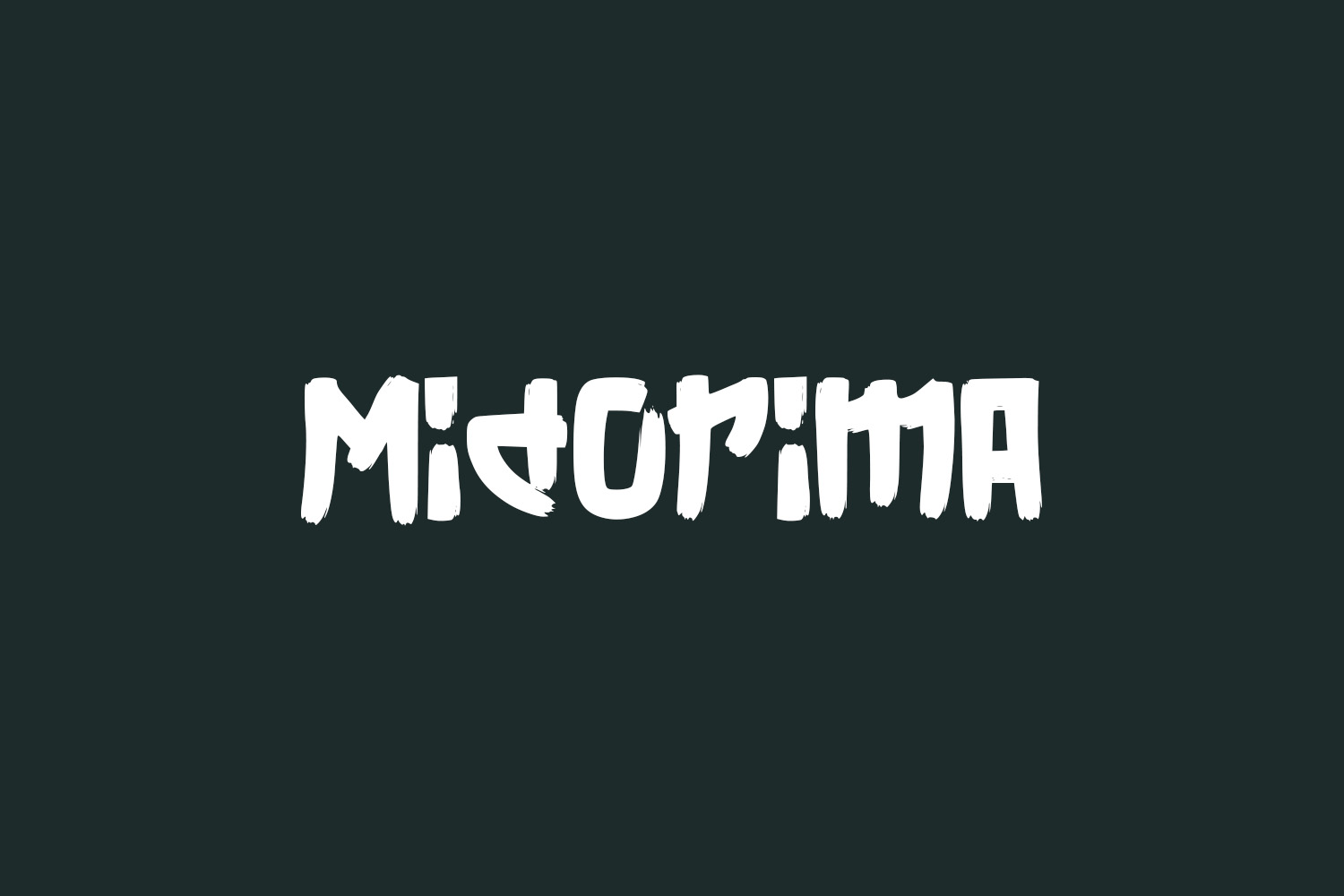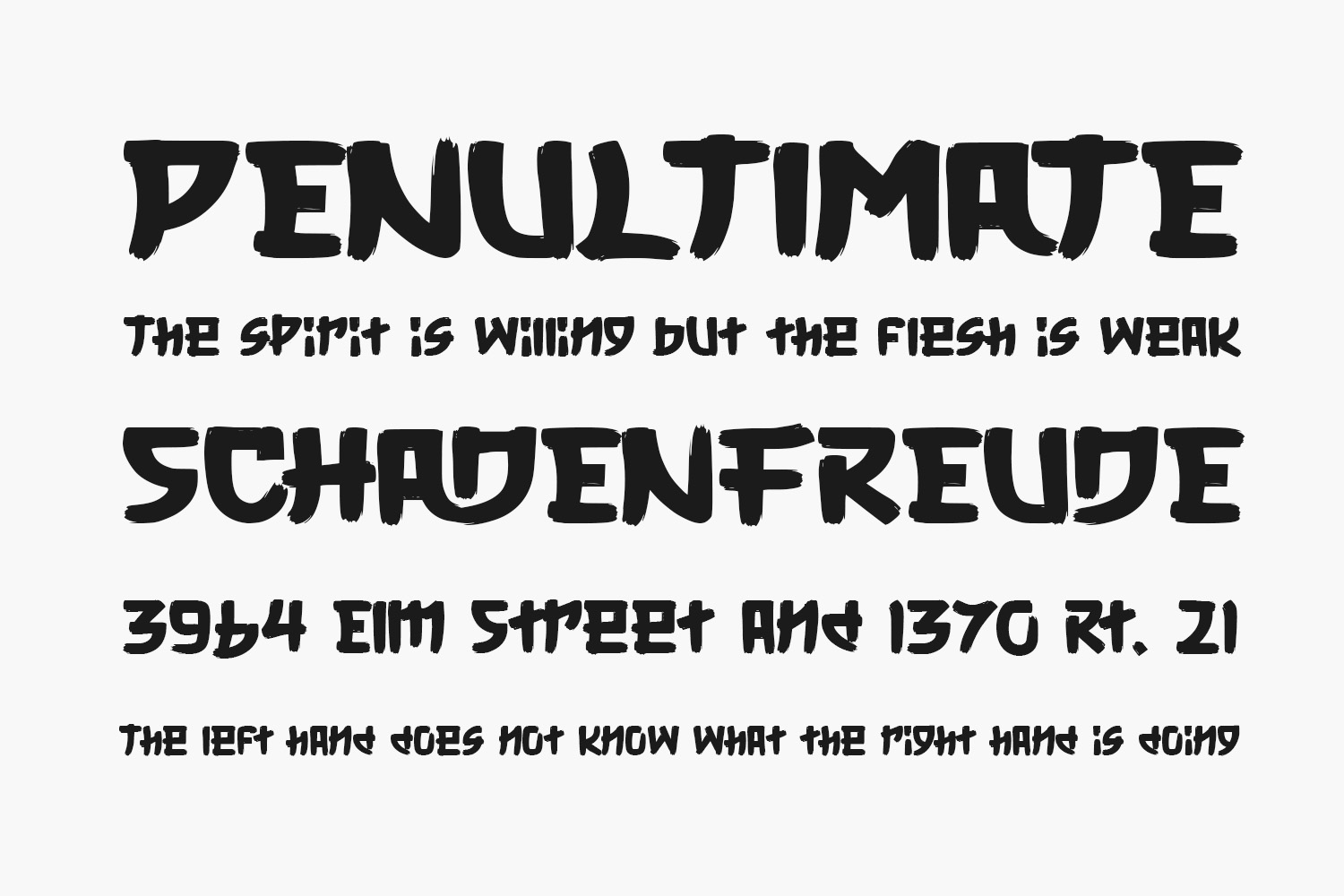
Midorima Free Font is a cool, brushed, Japanese styled display font. It will look stunning on any food menu, poster flyer or print. Midorima Free Font was designed by Helotype and is free for personal use only. Please purchase the full version for commercial use.